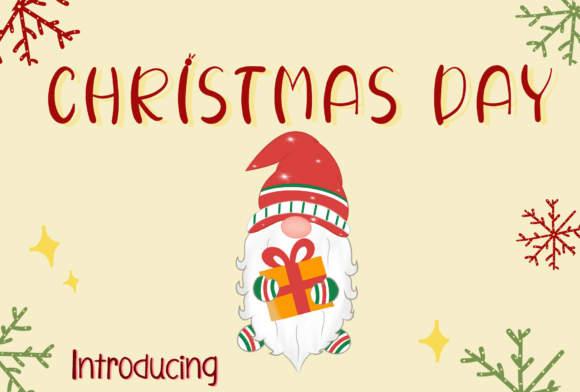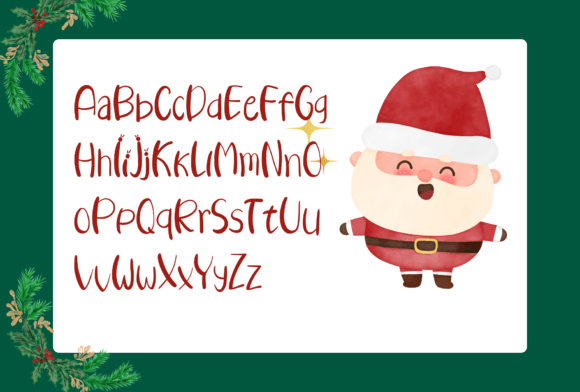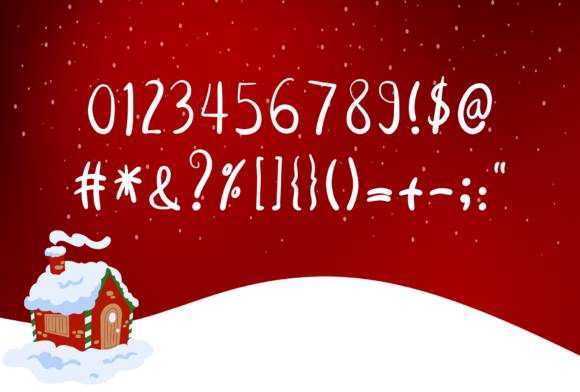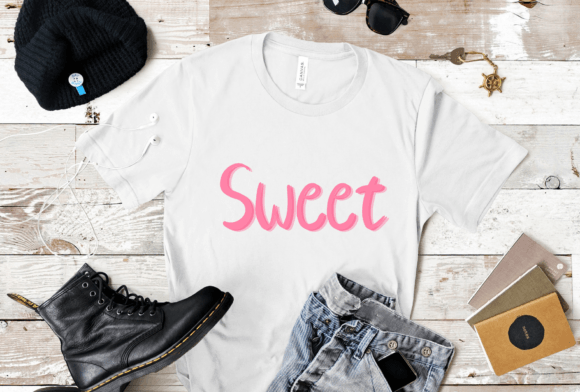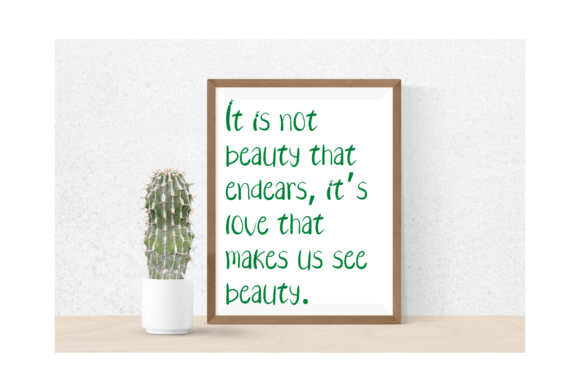
The Christmas Day Font Download is a fun and sweet handwritten script that captures the joyful spirit of the holidays while remaining versatile enough for year-round use. With its casual flow and warm personality, this typeface is ideal for crafts, invitations, posters, digital designs, and branding projects. Whether for professional designers or hobbyists, Christmas Day is a font that enhances every creative idea with elegance and charm.
A Sweet Handwritten Script with Festive Appeal
Unlike standard typefaces, this Christmas Day script font blends playful handwritten curves with a modern touch. As a result, it feels festive and friendly while still being highly functional. Its balance makes it perfect for projects that need both personality and clarity.
Perfect for Greeting Cards and Invitations
The holiday season is a time for sharing joy, and typography helps deliver that feeling. The Christmas Day Font is excellent for Christmas cards, wedding invitations, party flyers, and seasonal thank you notes. Moreover, its sweet flow ensures that every message feels heartfelt and warm.
Branding and Logo Design with Christmas Day Font
Typography defines a brand’s visual identity. The Christmas Day handwritten font is a great option for boutique logos, product packaging, and promotional campaigns. In addition, its fun yet refined strokes make brands appear approachable while keeping an elegant edge.
Posters, Titles, and Creative Displays
The Christmas Day Font Download also works wonderfully for posters, banners, and magazine layouts. Therefore, it adapts easily across both small-scale and large-scale designs, preserving readability while adding charm.
In today’s digital-first world, fonts must be both versatile and eye-catching. The Christmas Day typeface integrates smoothly into Instagram graphics, Pinterest boards, YouTube thumbnails, and blog headers. Its playful handwritten look ensures your online projects feel polished and creative.
Why Designers Choose Christmas Day Typeface
Designers love fonts that are both expressive and easy to use. Many handwritten fonts sacrifice readability, but the Christmas Day handwritten script keeps its personality without losing clarity. This balance makes it a reliable choice for all creative needs.
Add Joyful Charm to Your Projects Today
If you want a handwritten script that feels festive, sweet, and versatile, the Christmas Day Font Download is the perfect choice. From greeting cards and invitations to posters and social media graphics, it enriches every design with holiday warmth. Finally, download Christmas Day today and bring cheerful handwritten elegance to your projects.